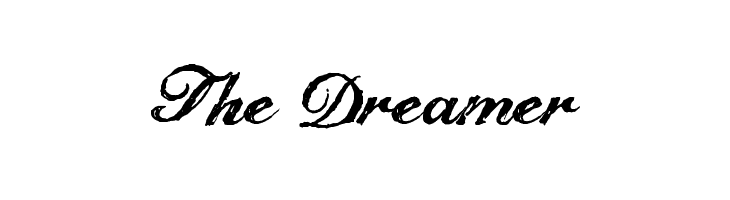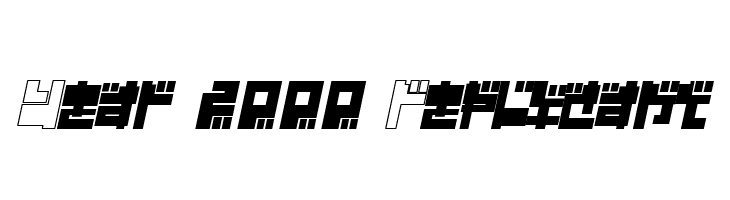
A playful, casual handwritten font with smooth curves and rounded edges.
A decorative and imaginative font with unique ligatures and artistic flair.
( JoannaVu - ioannaladopoulou.com )
A whimsical, spooky font with playful swirls and bold, animated characters.
A bold, geometric sans-serif font with a modern and clean design.
( Fonts by Letterena Studios )
A dynamic and elegant script font with fluid, slanted letterforms.
A bold, energetic handwritten font with thick strokes and dynamic letterforms.